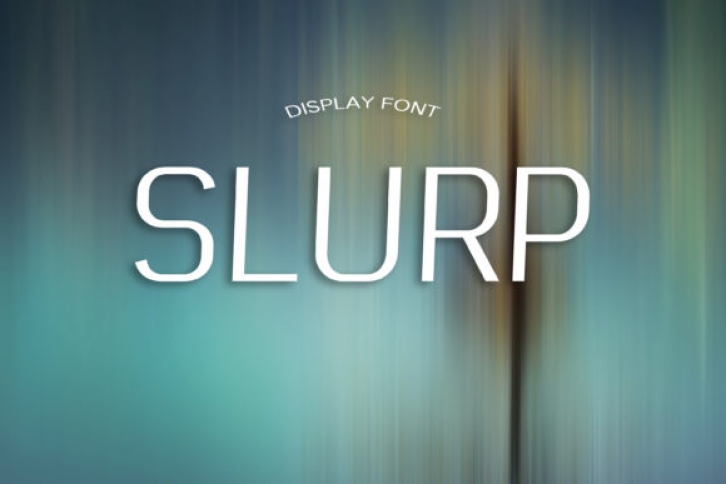
Slurp’s elegance perfectly translates across a wide range of design projects, ranging from headlines to body text. Get inspired by its versatile look!